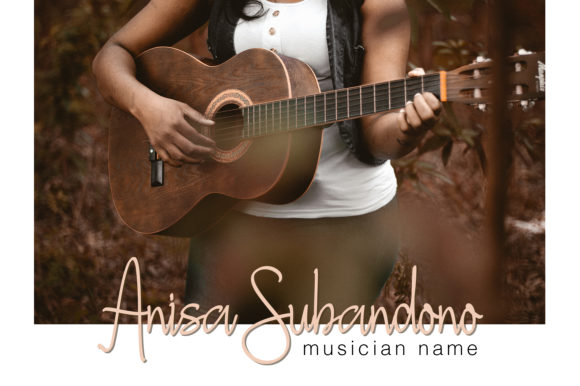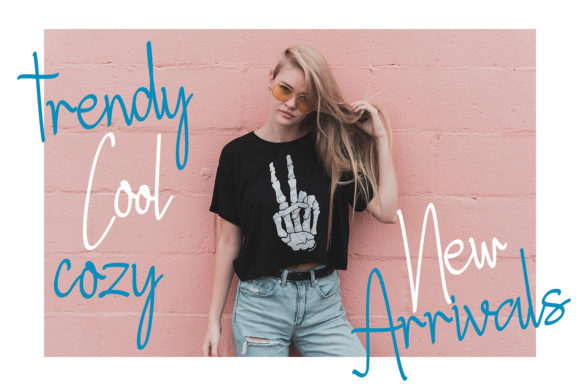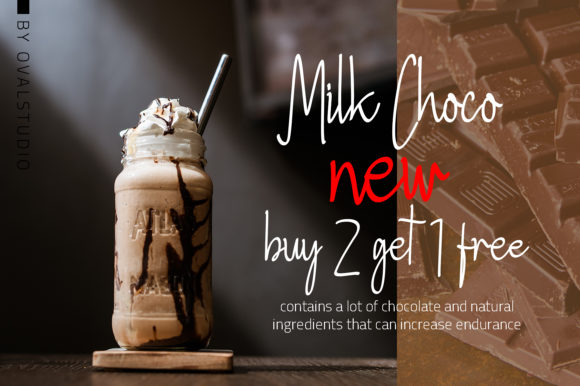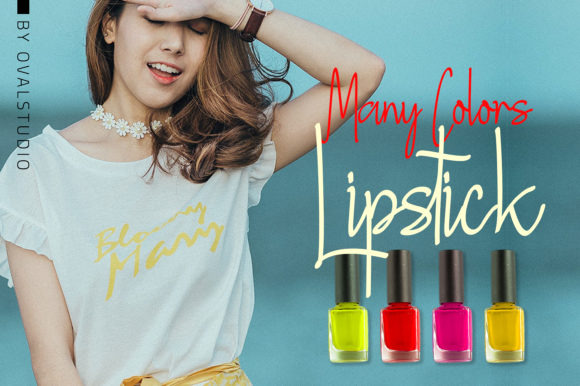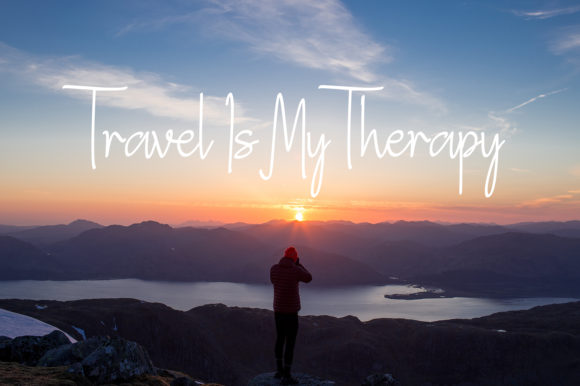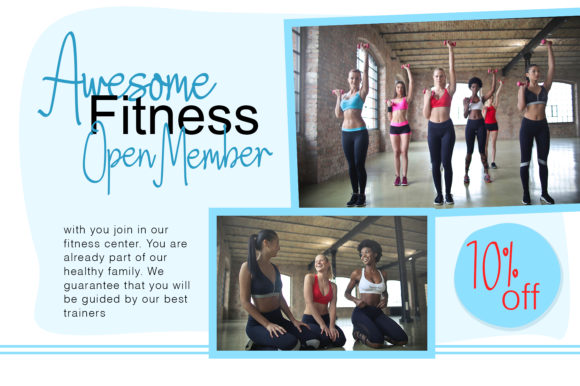
Introduction to Royseen Font
Royseen is a classic script with an incredibly cool and bold style.
Key Features of Royseen Font
Why Choose Royseen Font?
Royseen Font offers exceptional quality and versatility, making it a valuable addition to your design toolkit. Whether you’re creating for personal projects or commercial use, Royseen Font delivers professional results.